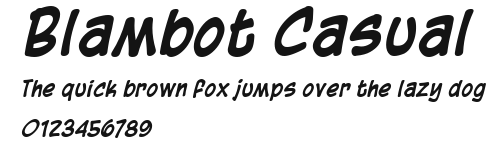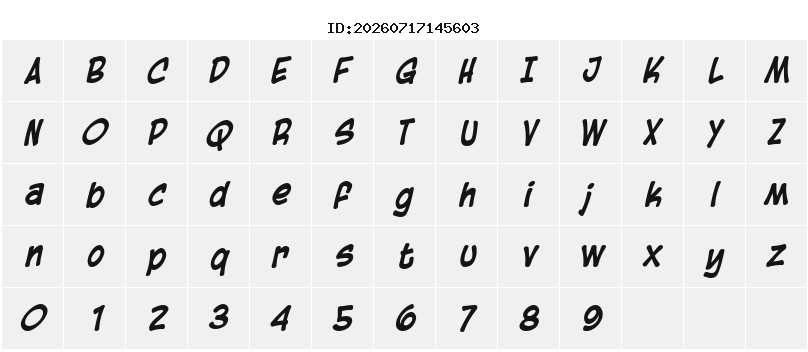
Blambot Casual Preview
• Font Name: Blambot Casual
• Font Style: BoldItalic
• Font ID: Macromedia Fontographer 4.1.5 Blambot Casual BoldItalic
• Full Font Name: Blambot Casual BoldItalic
• Version: Macromedia Fontographer 4.1.5 11/2/02
• PostScript Name: BlambotCasualBoldItalic
• Character Count: 269
About Blambot Casual.ttf
Blambot Casual.ttf is a modern, elegant sans-serif font designed for ultimate readability and visual harmony. Perfect for branding, headlines, web design, and print materials.